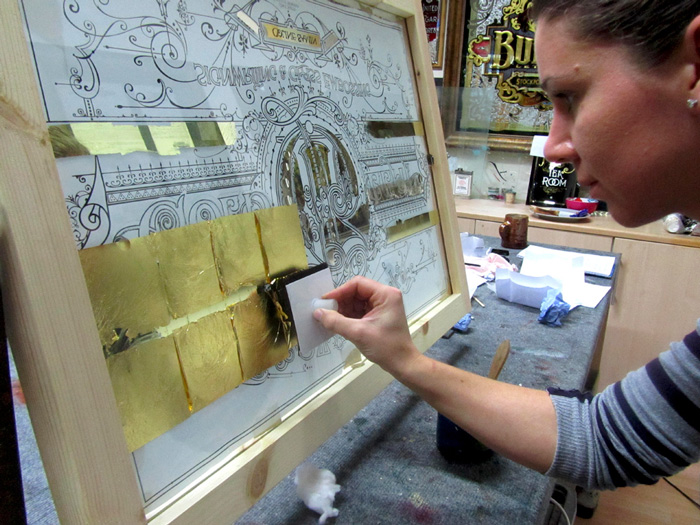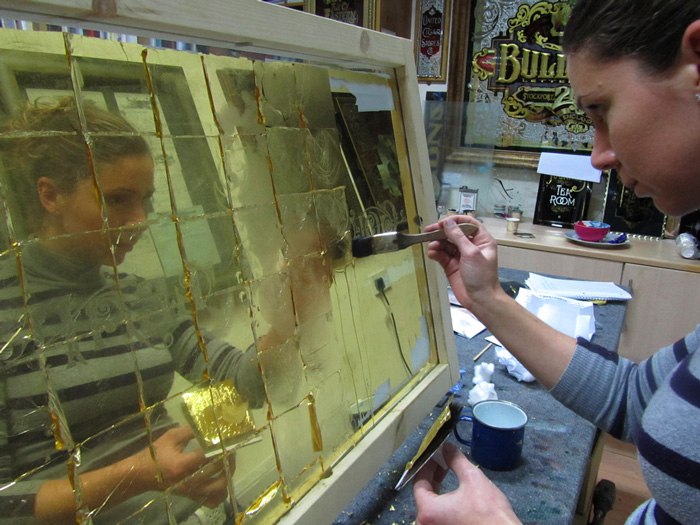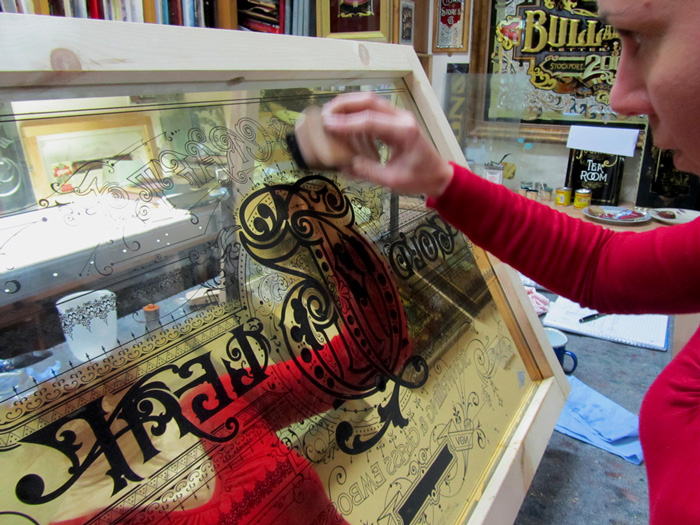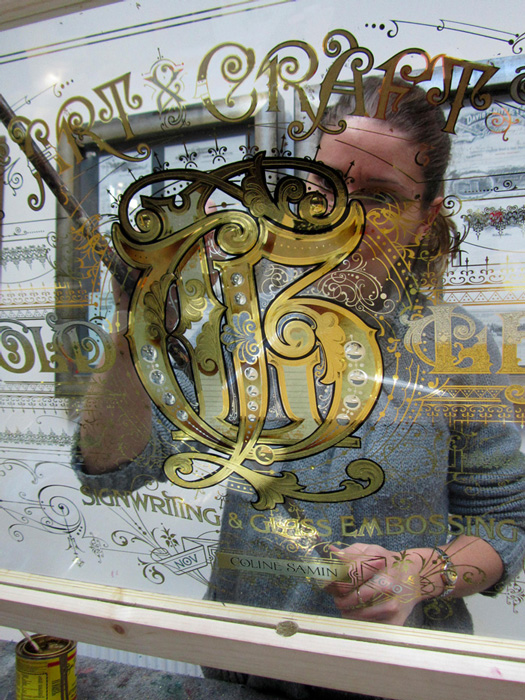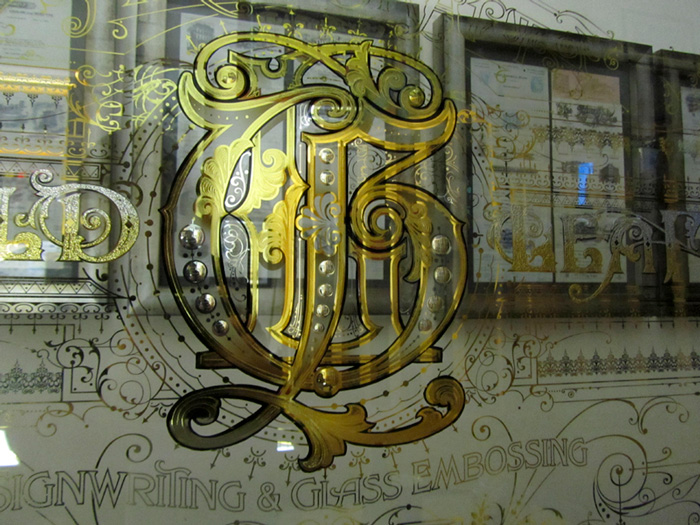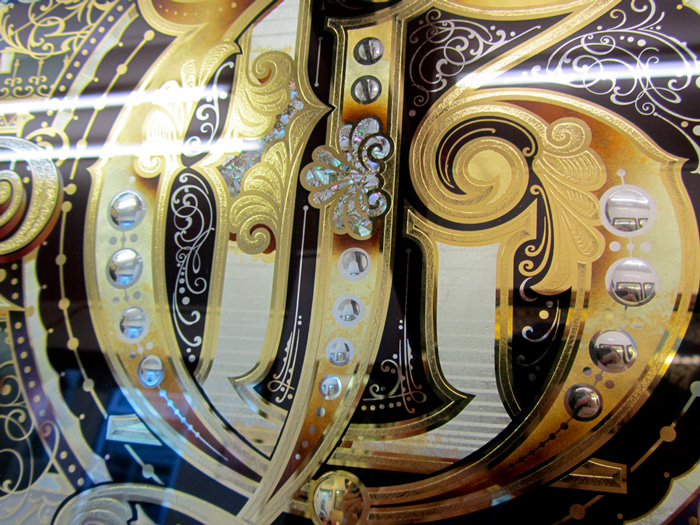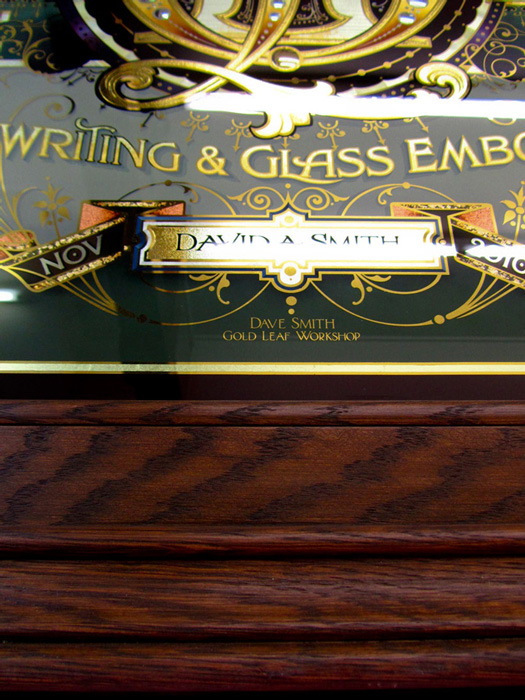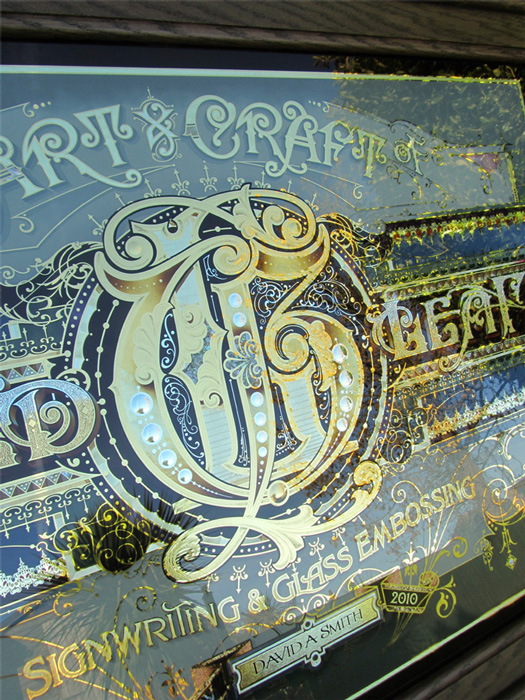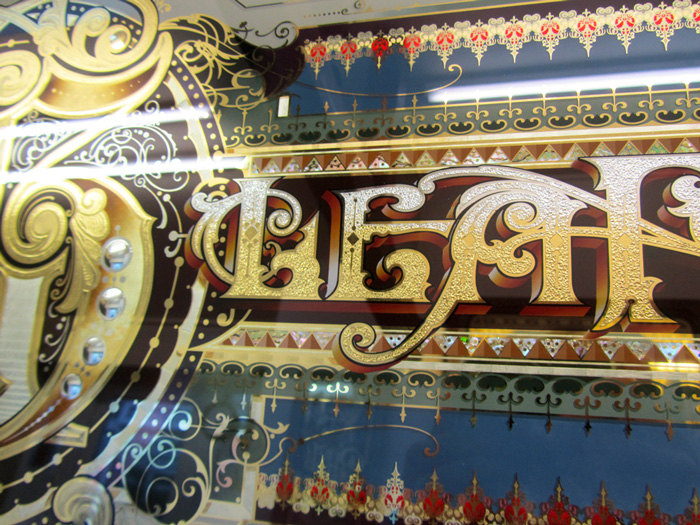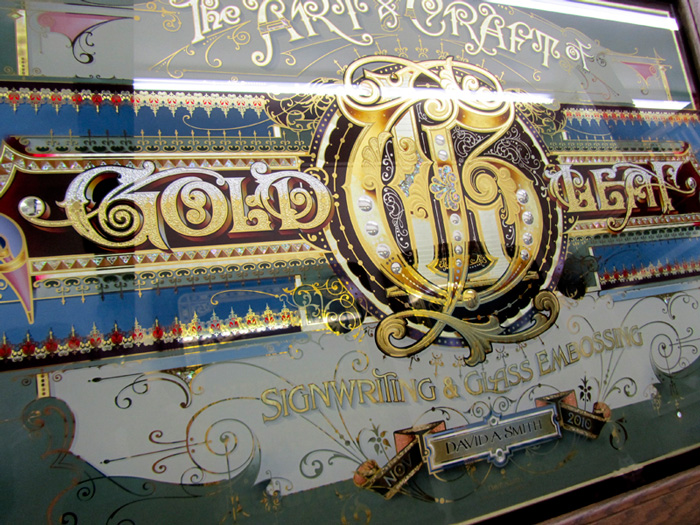
Signwriters Gold Leaf Workshop UK
I had a Gold Leaf workshop here back in November and just got round to uploading photos of my finished glass panel and some of Coline working on her panel.
Coline who is from France but now living in Ireland travelled over to learn this craft. She will post some of her picks soon to show you.
last one. Just trying to show the glass in different angles which is so hard, sorry for the amount of photos..
this one shows the hand lettered split shading. It's hard to tell from the pictures but every ornate scroll and borders all have hand shaded colour. That bit took ages.
Dave, Could a Guy just buy that design from you.. I would love to try my hand at something that complicated.
Ahh....in a photo it all looks so different!! Also I notice that your student is using 2 recent improvements to the gilding process. The Smith tip (you clever bugger) and the jewellers brush for cleaning up leftover leaf. I have one John Jordan gave /sold me a few years ago....also a terrific advance.
I agree Doug the Jordan brush is very slick, Rick Glawson would of found that a joy to work with.